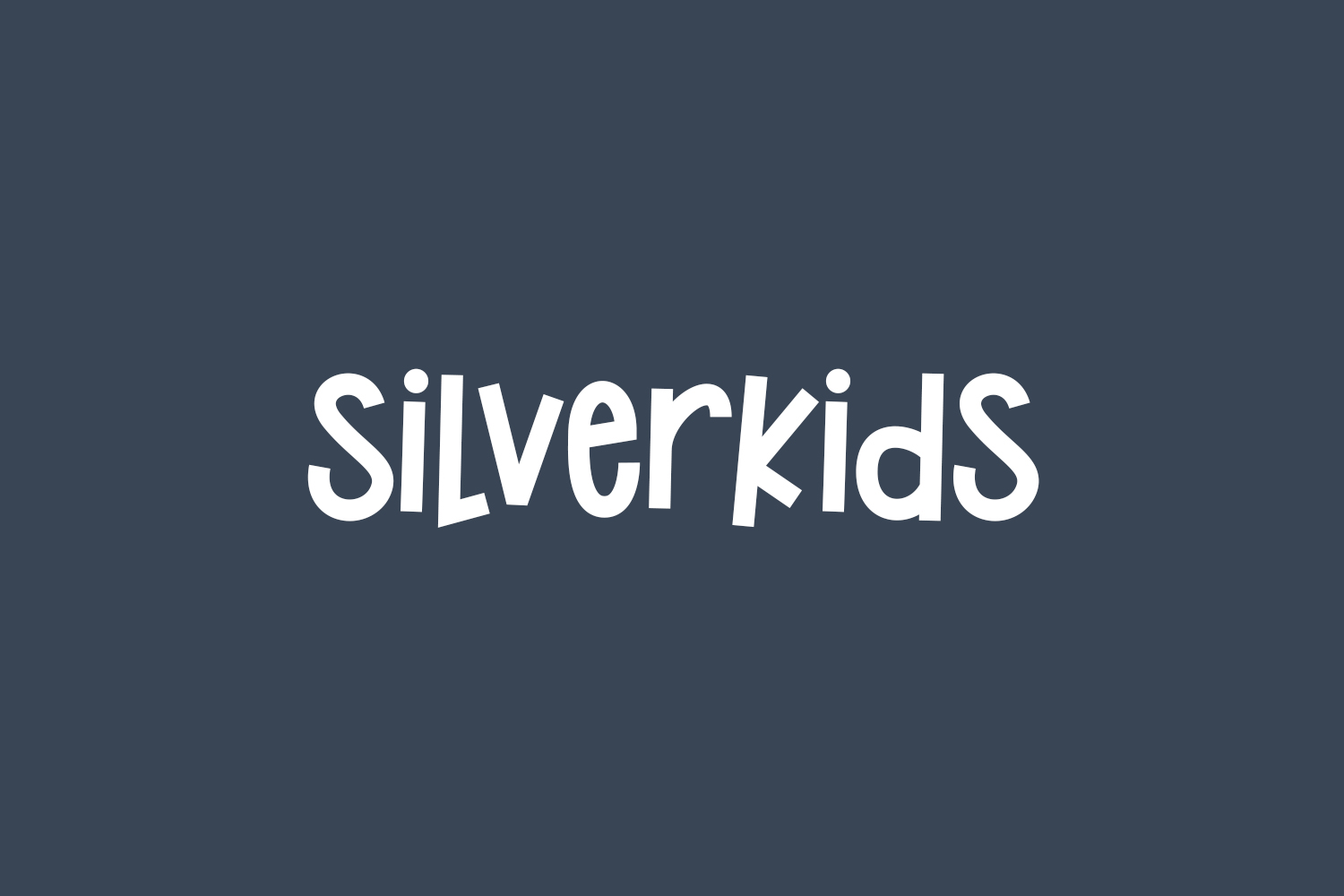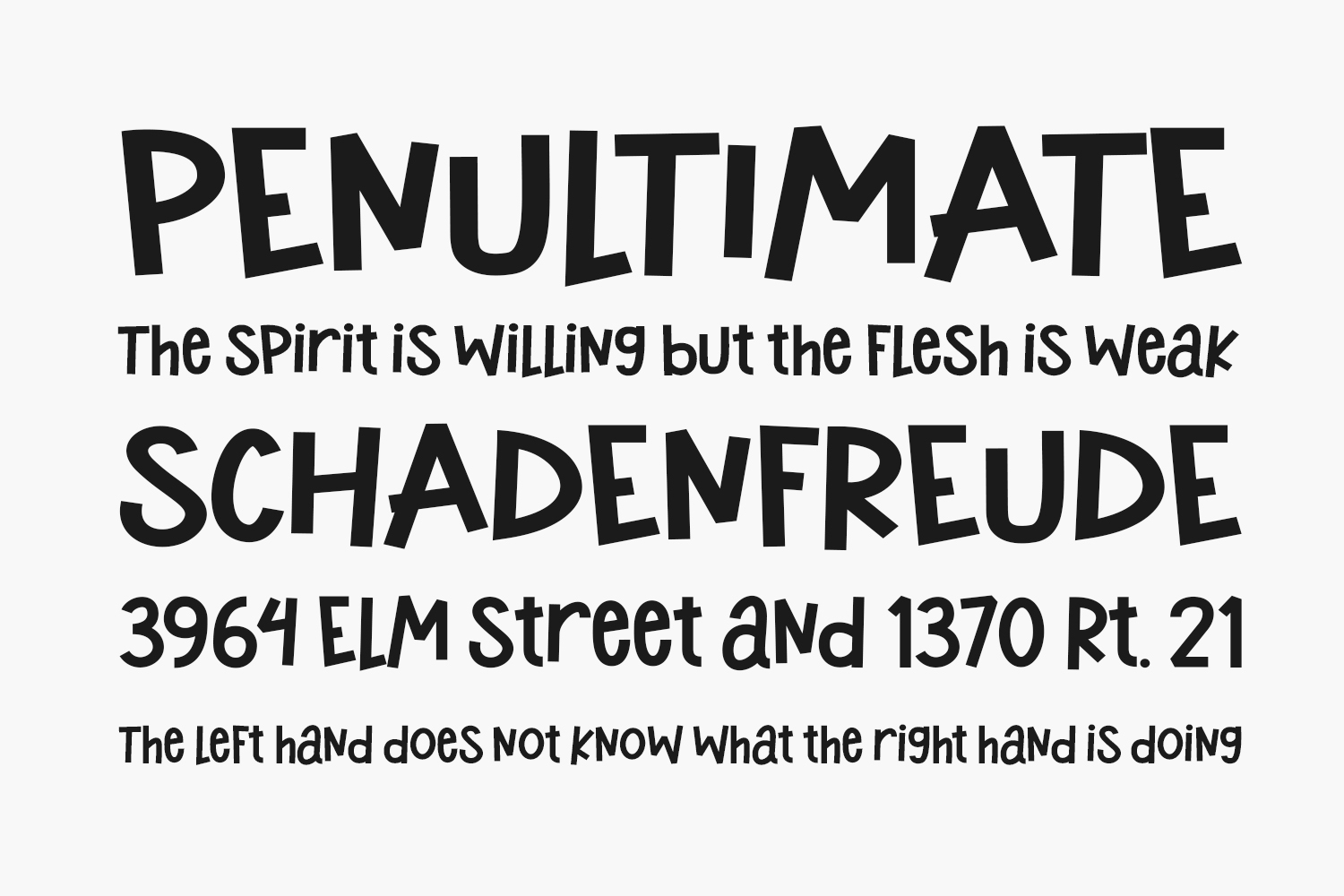
Silverkids Free Font is a sweet, fun, and cute handwritten font. Clean and soft, this font is the perfect fit for all of your crafty DIY projects, cricut, logos, branding, social media, and any project that requires a personal look. Silverkids Free Font was designed by BrandSemut and is free for personal use only. Please purchase the full version for commercial use.